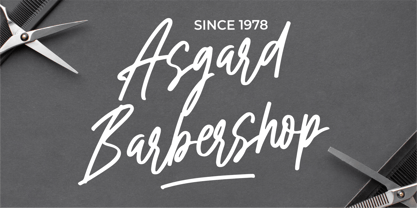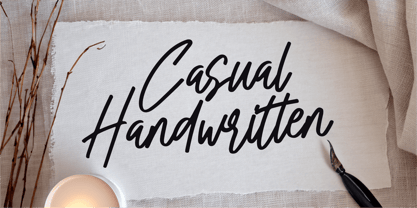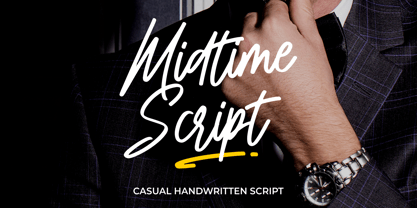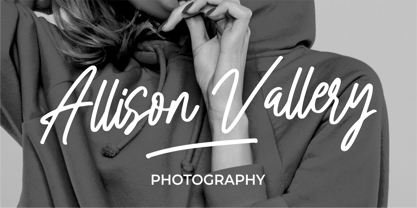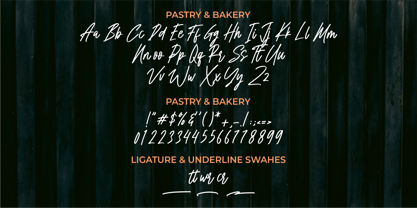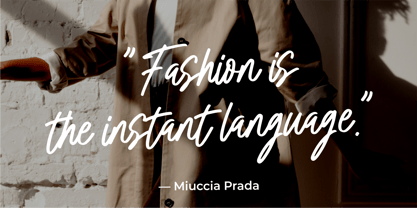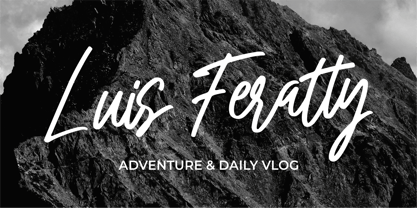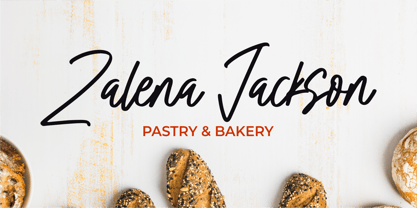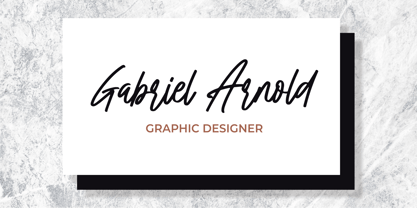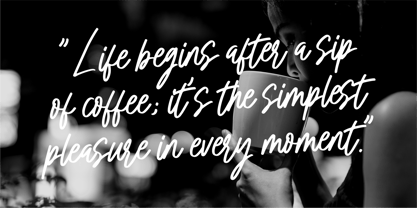
Midtime Script
by MJB Letters
The Midtime Script Font Family was designed by Muhammad Mujibulloh and published by MJB Letters. Midtime Script contains 1 styles. More about this family
Midtime Script is a casual brush script font with a stylish and versatile feel. Perfect for adding a personal touch to your projects, it’s ideal for logo design, product branding, business cards, and more. With its flowing strokes and contemporary vibe, Midtime Script brings creativity and charm to any design, making it a great choice for businesses, personal projects, and professional branding.
Designers: Muhammad Mujibulloh
Foundry: MJB Letters